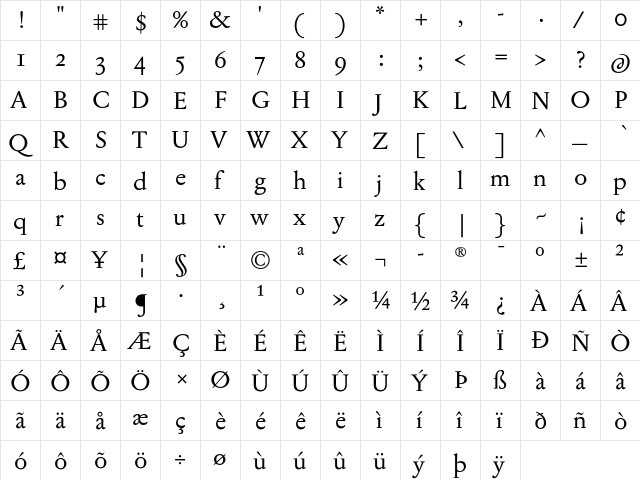
Jannon T Moderne OT Regular
| Foundry | Frantisek Storm |
| Designer | Frantisek Storm |
Design Context for Jannon T Moderne OT Typeface
Jannon T Moderne OT offers clean, dependable letterforms without strong stylistic allegiance, making it a practical choice for designers who need flexibility.